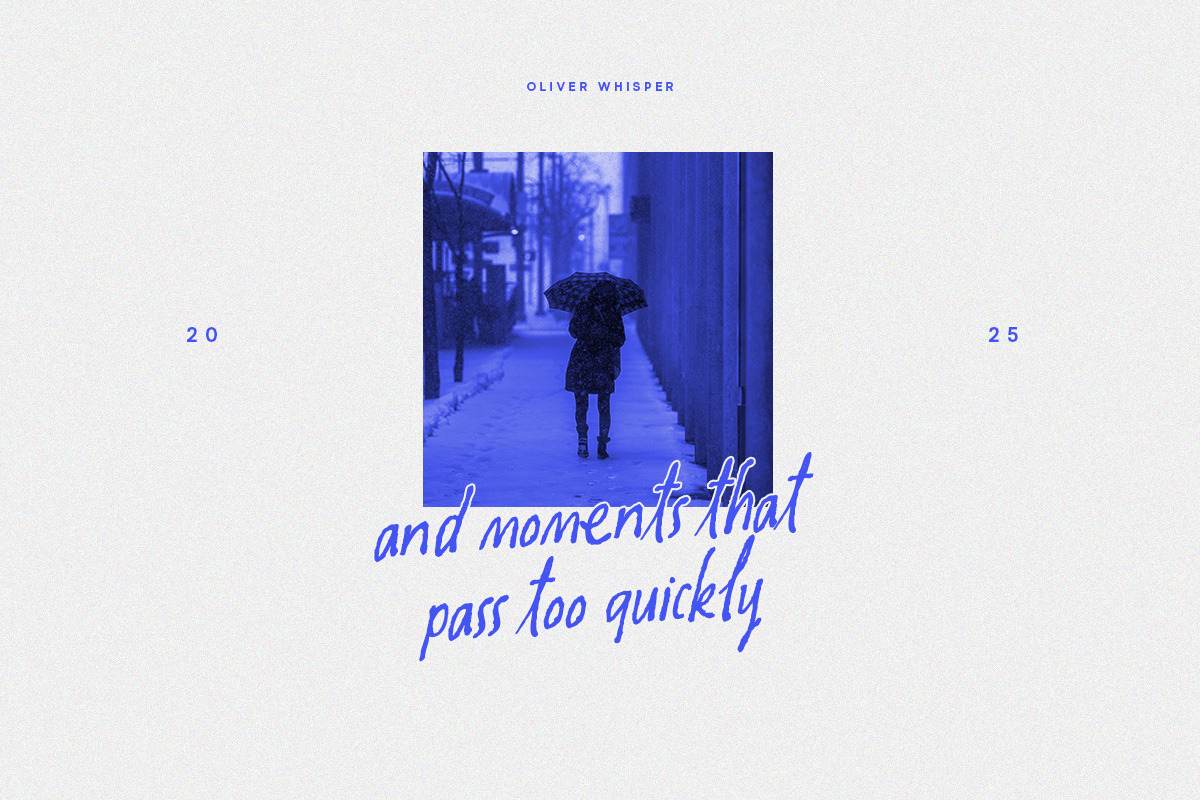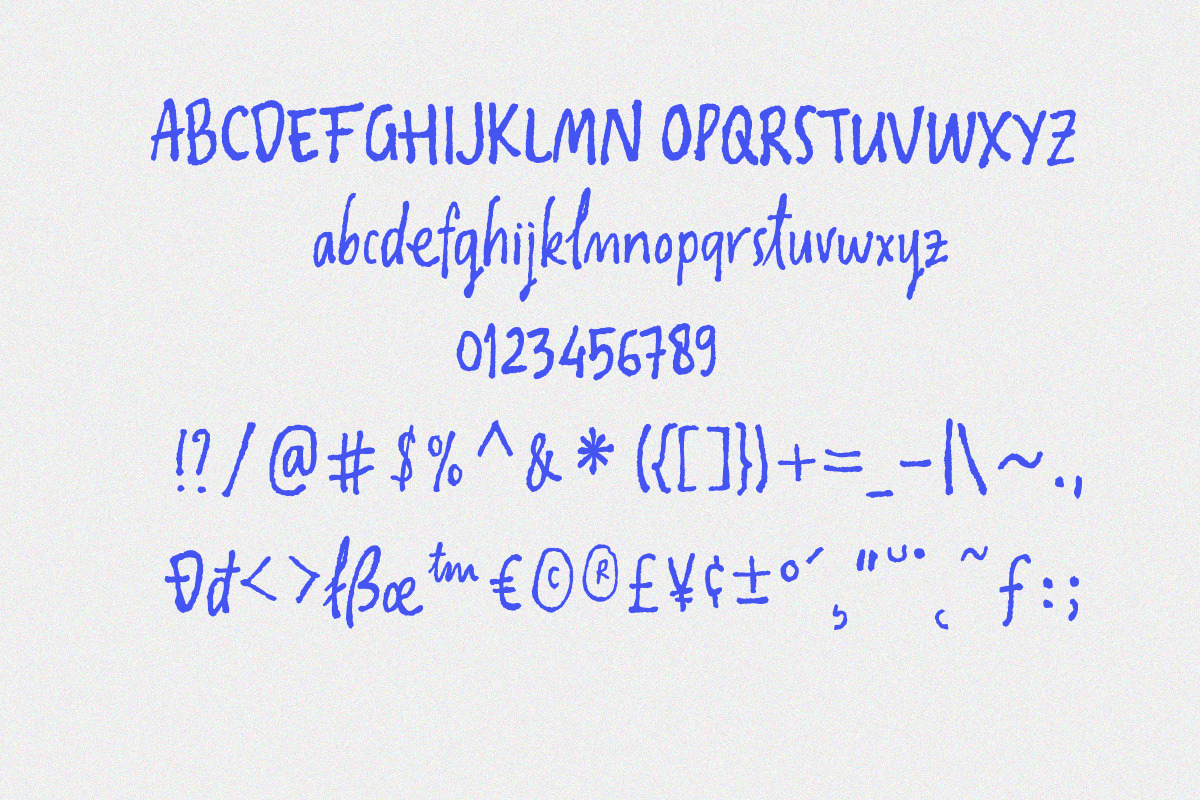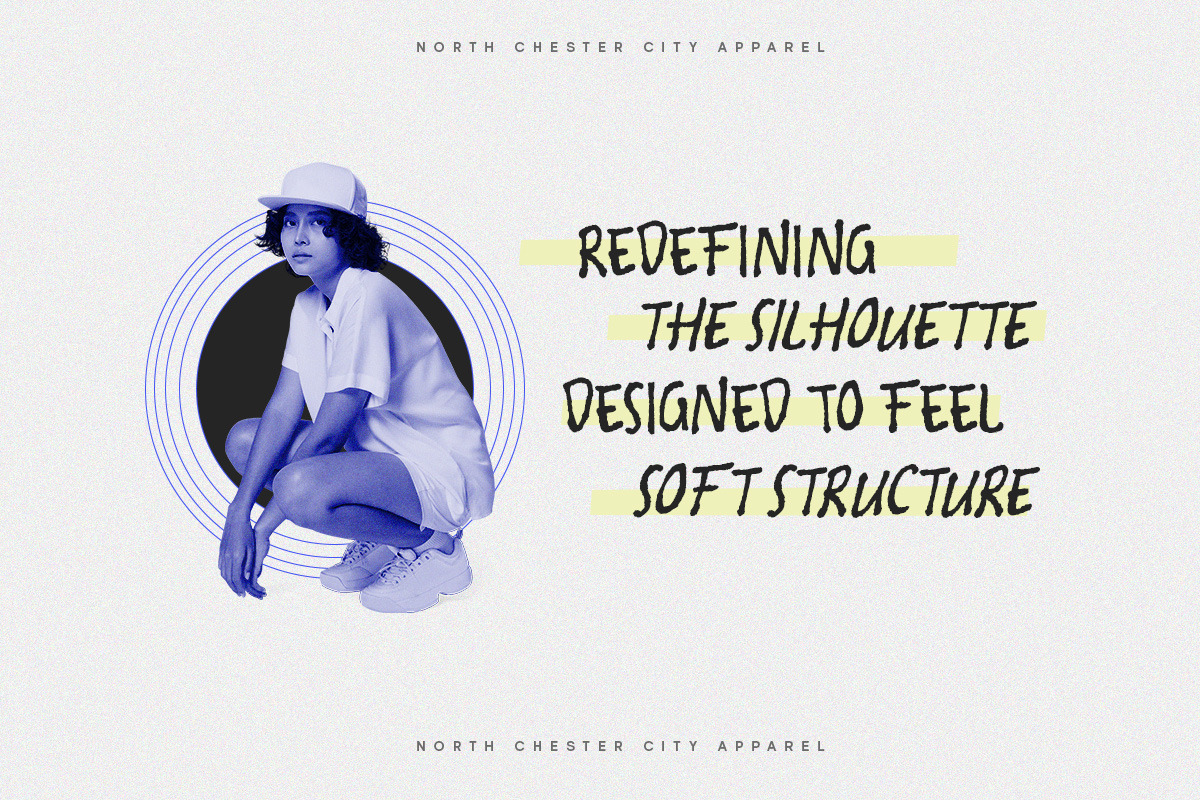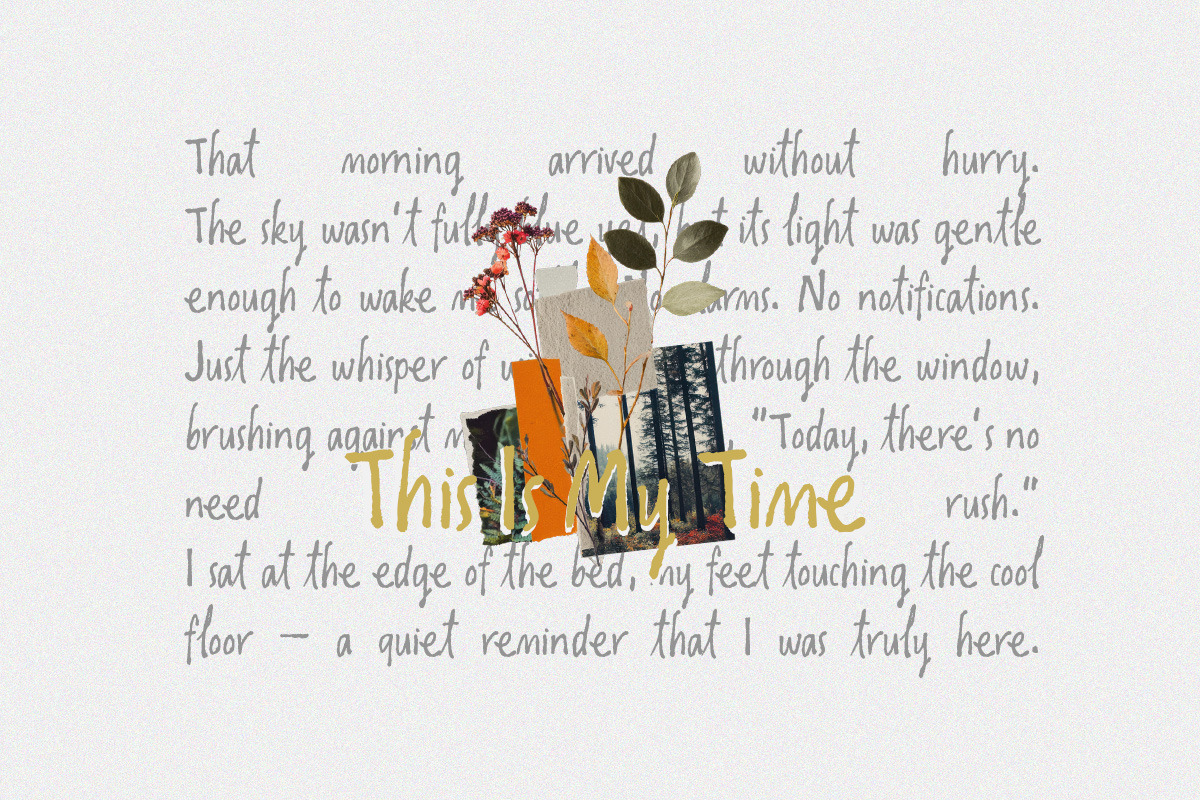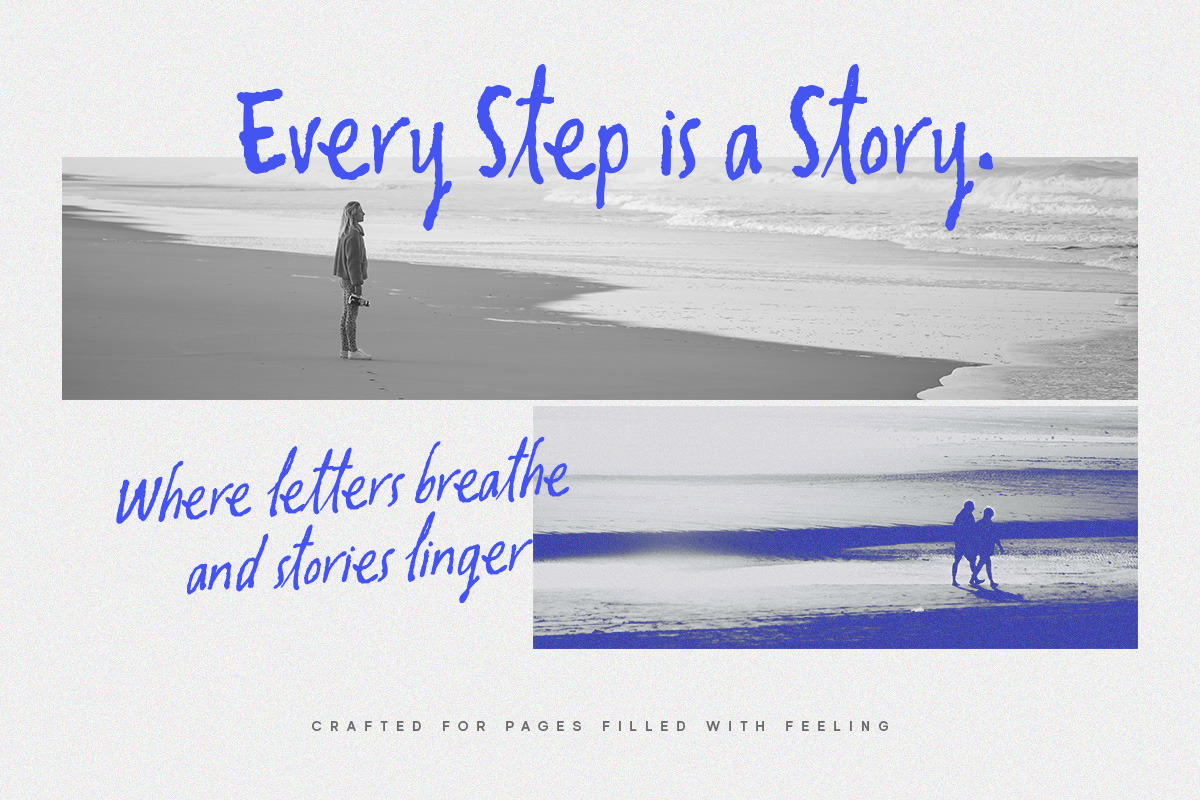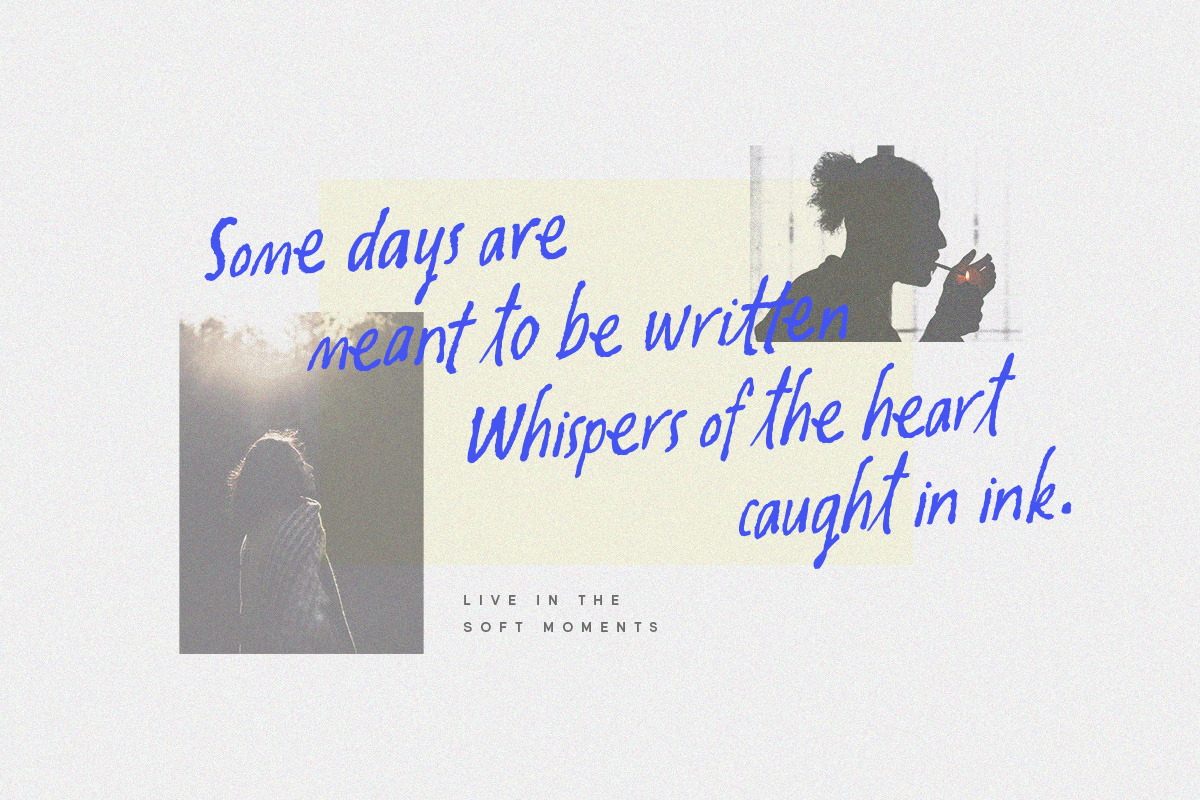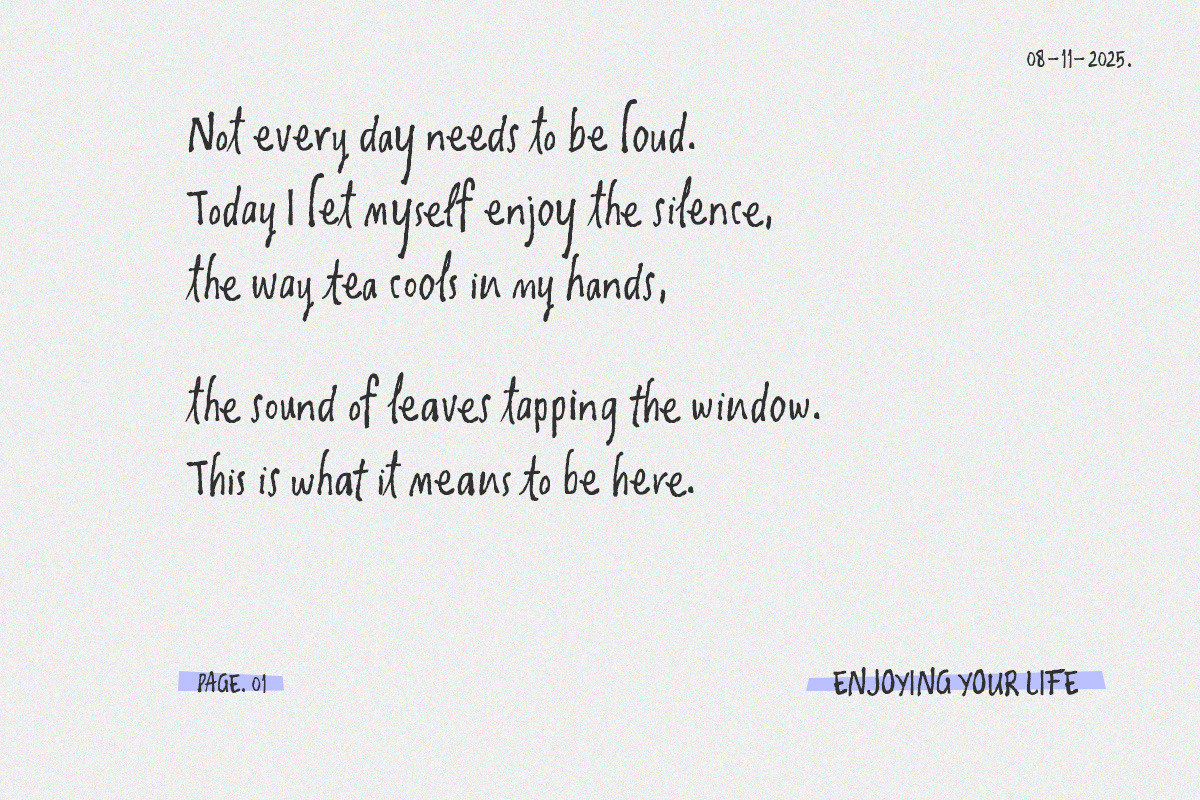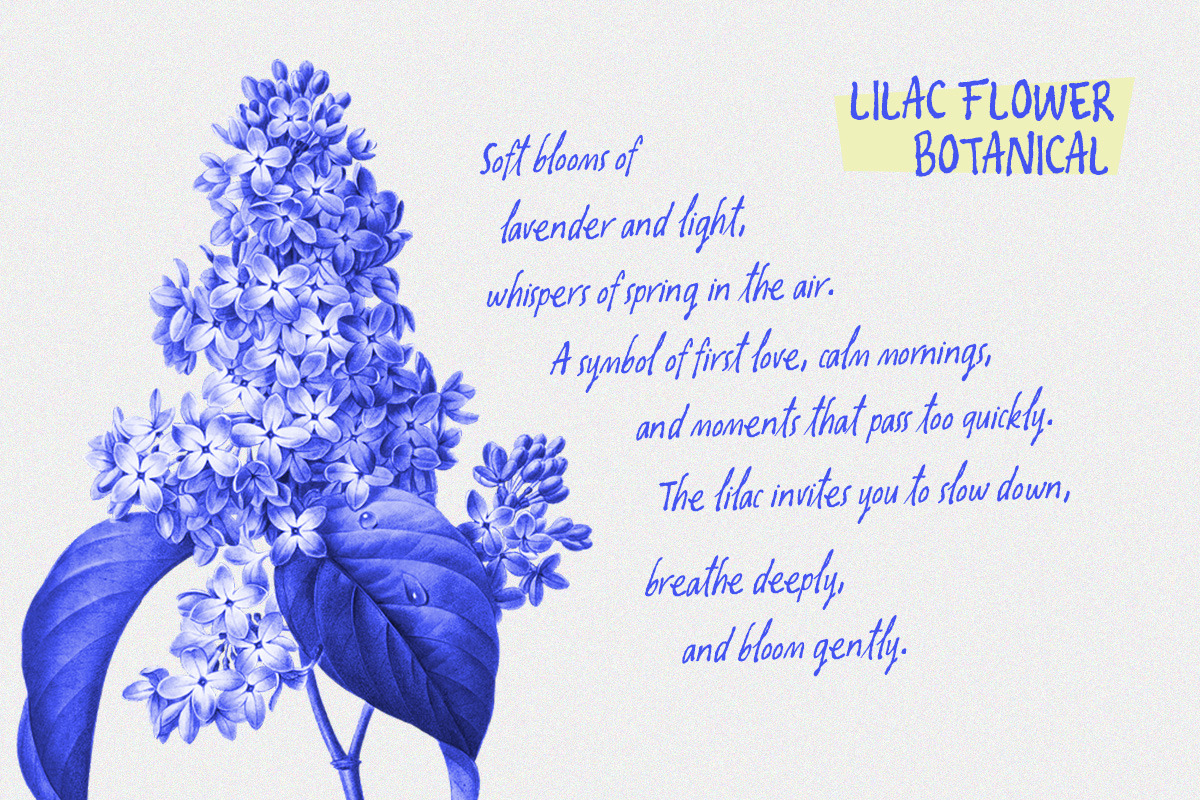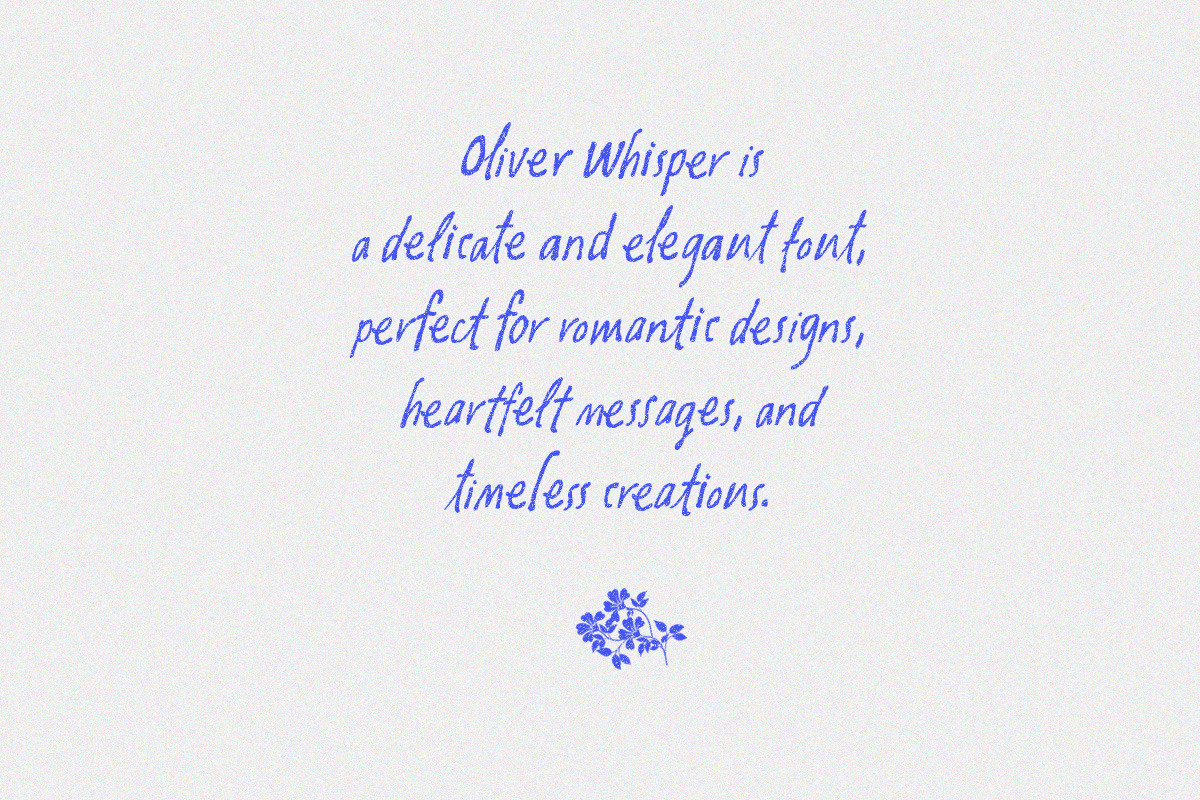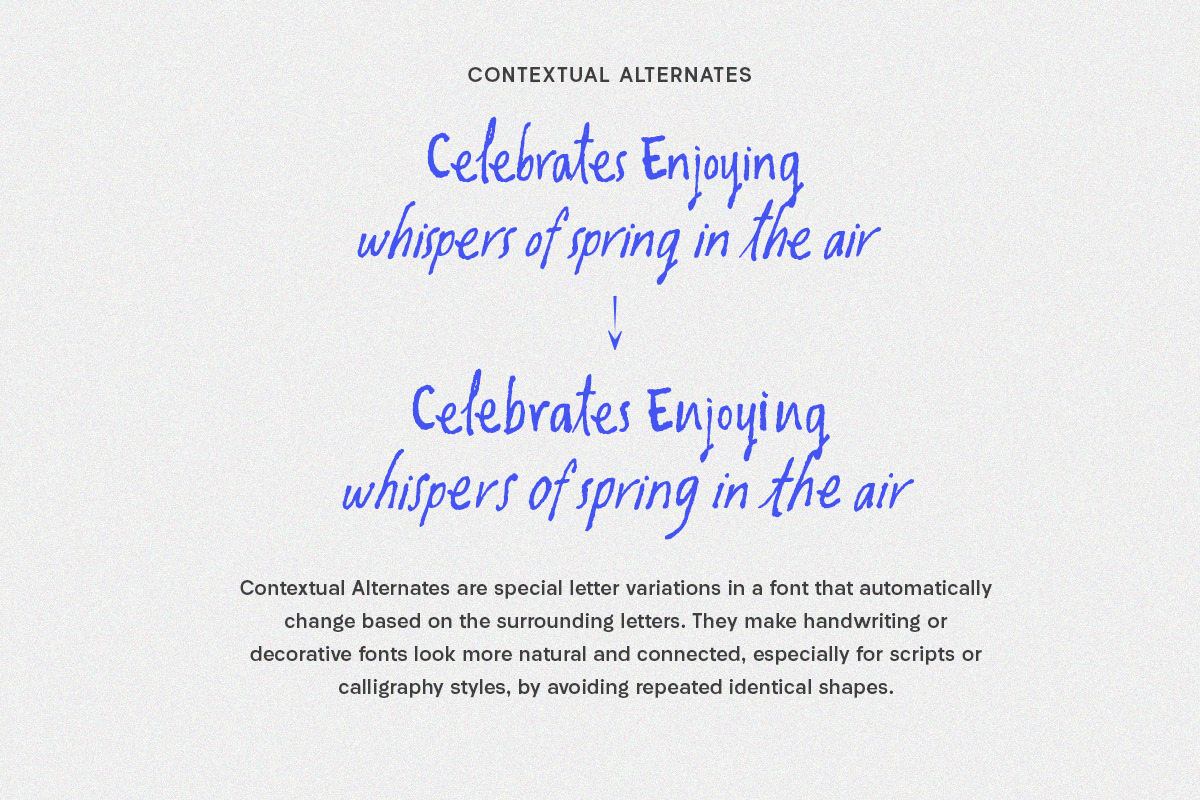
Oliver Whisper Messy Handwritten
Oliver Whisper is a handwritten font that feels raw, honest, and a little bit imperfect—in the best way possible. Its textured strokes and natural flow give it the quiet confidence of a note scribbled in the moment, yet it carries enough character to stand boldly in logos, posters, quotes, and creative branding.
- Alternates/Ligatures